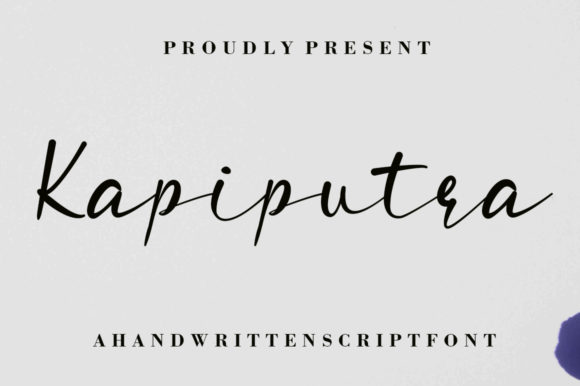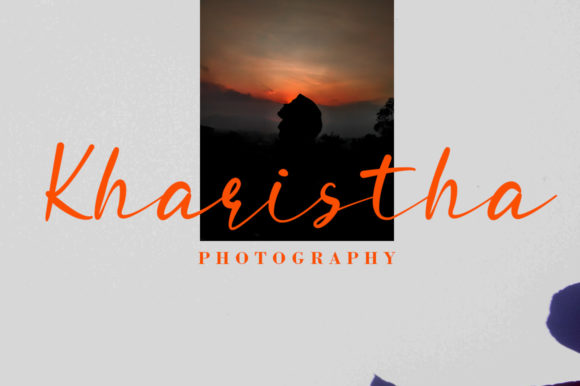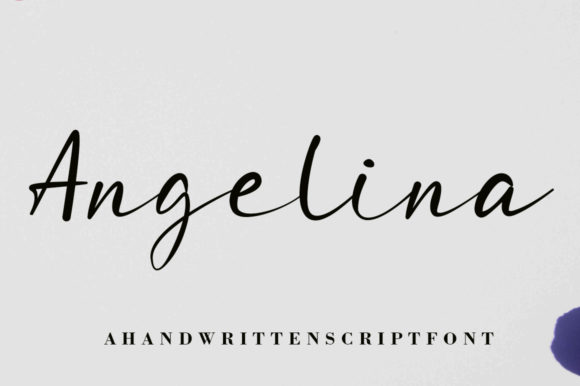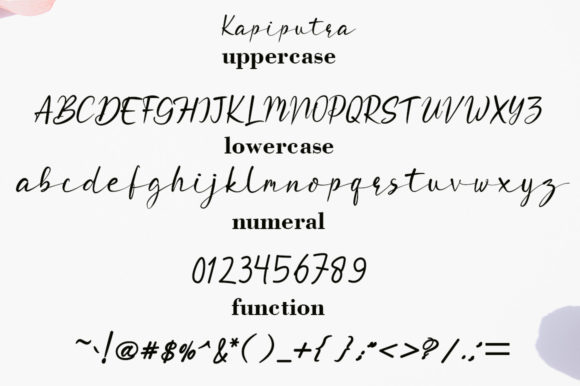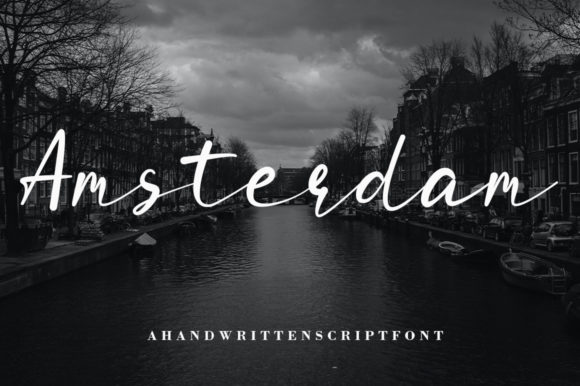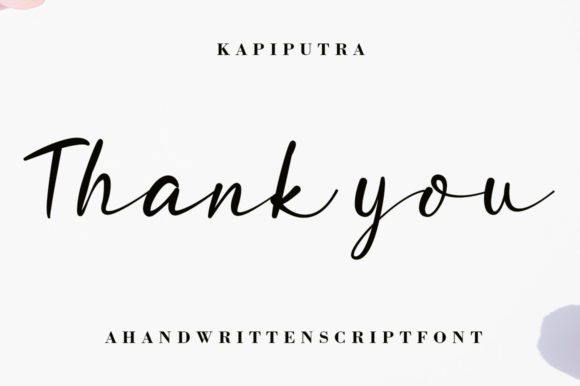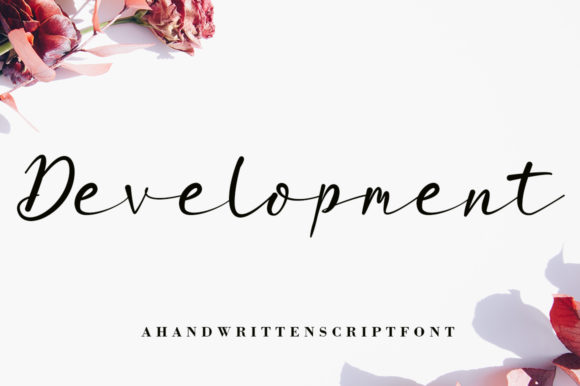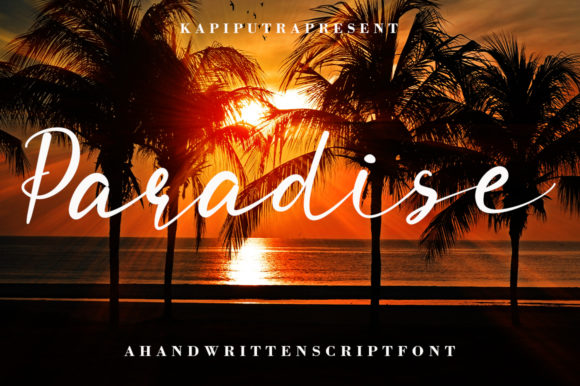
Kapiputra Font
About Kapiputra Font
“Kapiputra” is a captivating script font characterized by its free-flowing strokes and graceful appearance. Designed with versatility in mind, this font is perfect for a wide range of applications, including packaging products, invitation cards, flyers, mockups, event posters, and more.
One of the standout features of “Kapiputra” is its beautiful and balanced character. Each letter is meticulously crafted to maintain harmony and fluidity, resulting in a font that exudes high-quality vibes and sophistication. Whether used for elegant wedding invitations or eye-catching event posters, “Kapiputra” adds a touch of elegance and refinement to any project.
The free-flowing nature of “Kapiputra” lends itself well to various design styles, making it a versatile choice for designers seeking a font that can adapt to different contexts. Its graceful curves and smooth lines create a sense of movement and energy, while its balanced character ensures readability and visual appeal.
Whether you’re designing packaging for luxury products or creating promotional materials for a special event, “Kapiputra” offers the perfect combination of style and functionality. Its versatility and high-quality design make it a valuable asset for any designer looking to elevate their projects with a touch of sophistication.